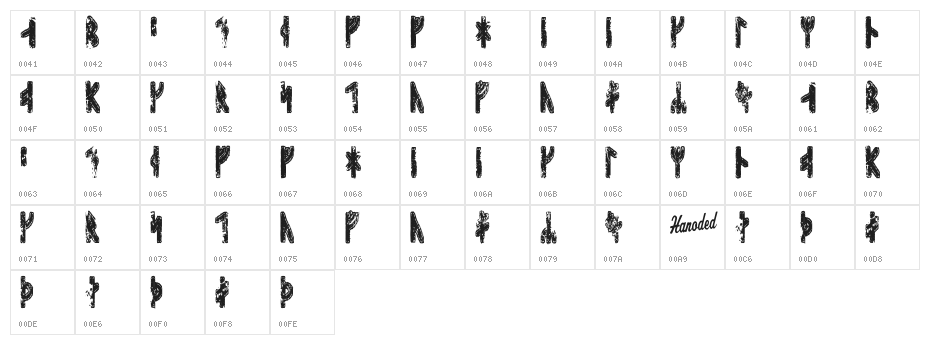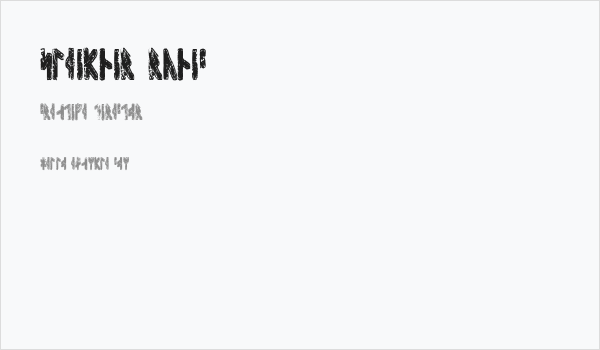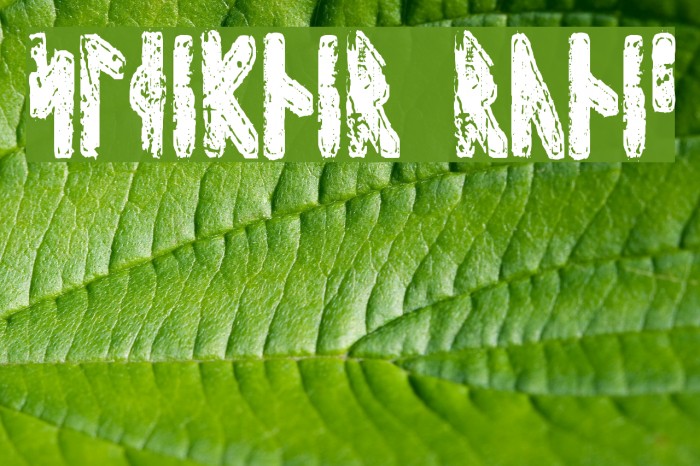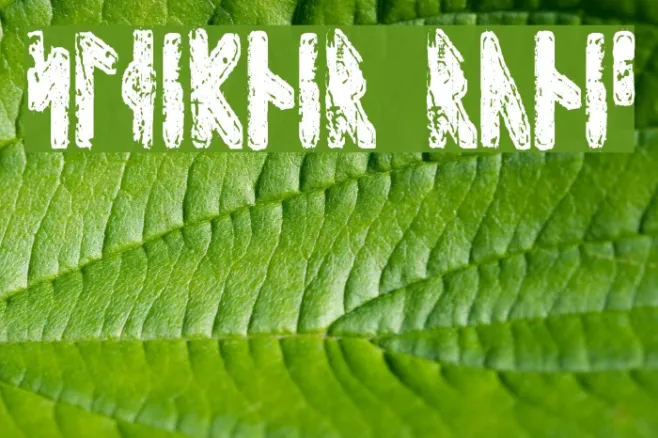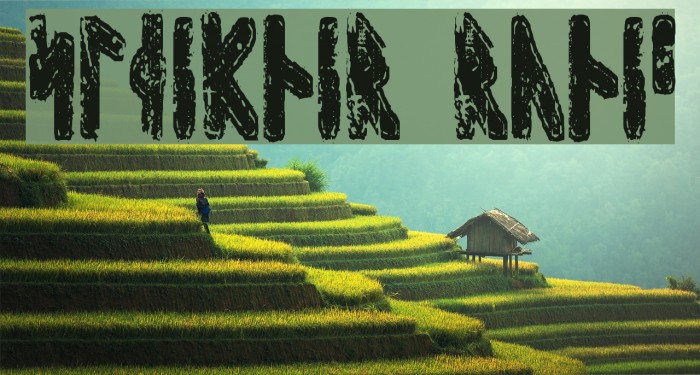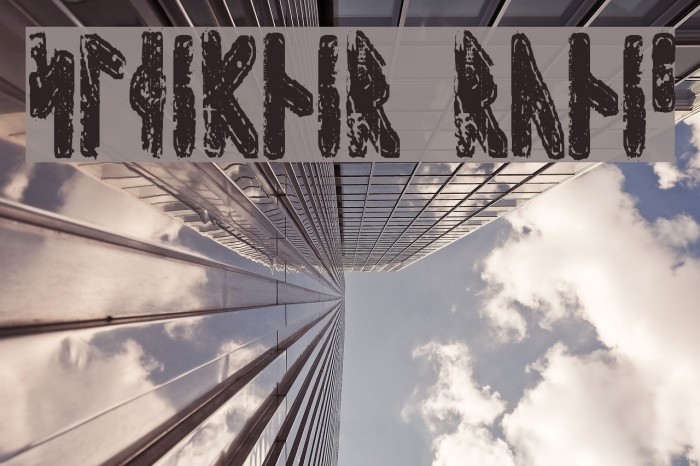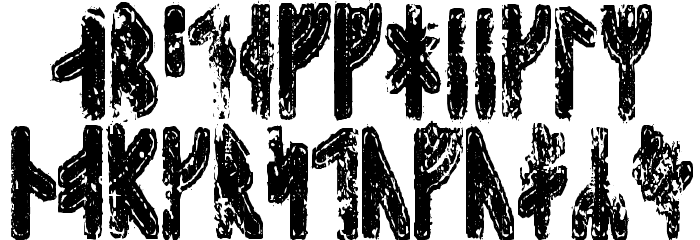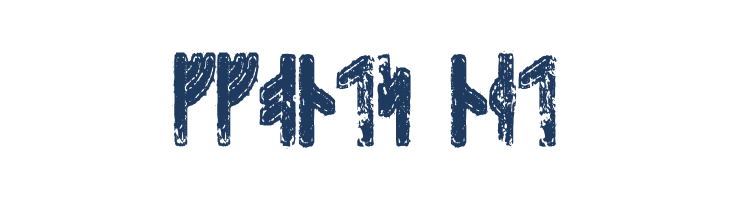
Sleipnir Runic Font
Sleipnir Runic Description
This font features a rugged, ancient runic style, reminiscent of old Norse inscriptions. The characters are bold and heavily textured, giving them a weathered, historical appearance. Each letter is distinct, with sharp angles and a rough, chiseled look that suggests they were carved into stone or wood. The texture adds depth and authenticity, making it ideal for projects that require a touch of antiquity or a mystical, Viking-inspired theme. The font's unique style is both decorative and functional, capturing the essence of ancient scripts while remaining legible.
| Use Case | Logos, Headlines, Themed Designs |
| Proposed Projects | Ideal for fantasy book covers, historical documentaries, themed event posters, or video game graphics. |